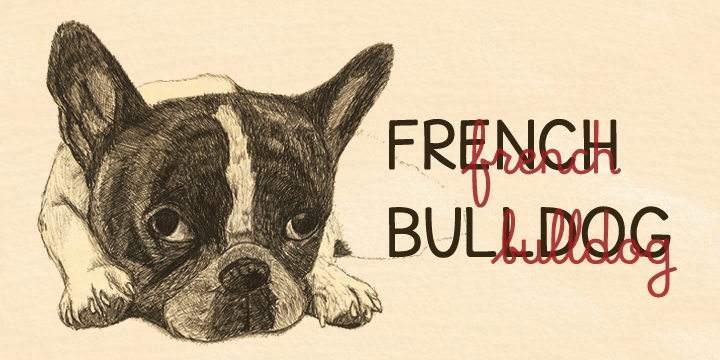
Mr. and Mrs. Peter Font Free Download is a playful and charming script typeface designed to bring a touch of elegance and whimsy to your designs. With its flowing curves and handwritten style, it’s perfect for invitations, greeting cards, wedding stationery, logos, and any design that calls for a personalized, romantic touch.
The font’s graceful letterforms make it ideal for both casual and formal applications, offering a delightful and sophisticated aesthetic. Whether you're working on wedding invitations or branding for a boutique, Mr. and Mrs. Peter Font adds a unique, stylish flair to your work.
Incorporate Mr. and Mrs. Peter Font Free Download into your next project for a beautifully whimsical and elegant touch that enhances your design.